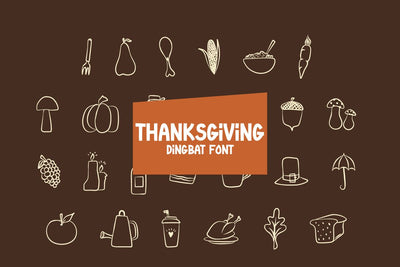
Thanksgiving - Dingbat Font
Thanksgiving is a unique and creative dingbat font. This font is inspired by the Thanksgiving theme. it contains a thanksgiving doodle glyph